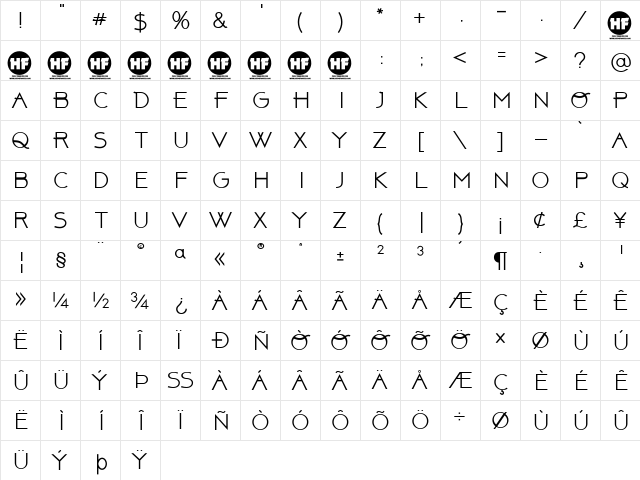
Above DEMO Regular
| Foundry | Guilhem Greco/ Hypefonts |
| Designer | Guilhem Greco |
Design Context for Above DEMO Typeface
Above DEMO takes a measured approach to typography — its balanced proportions and neutral character make it a reliable workhorse for both digital and print work.